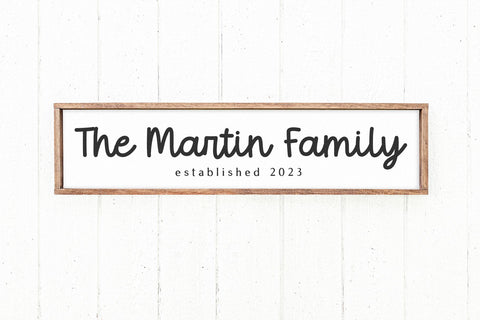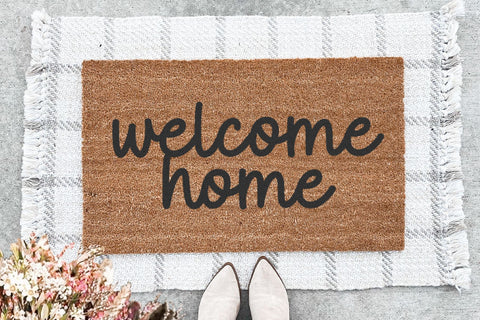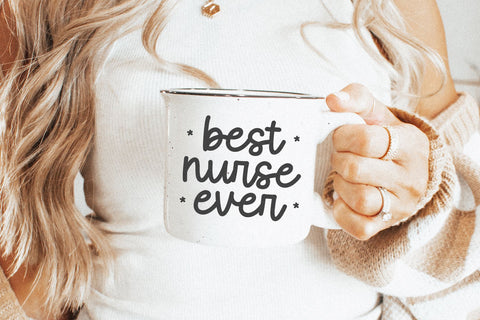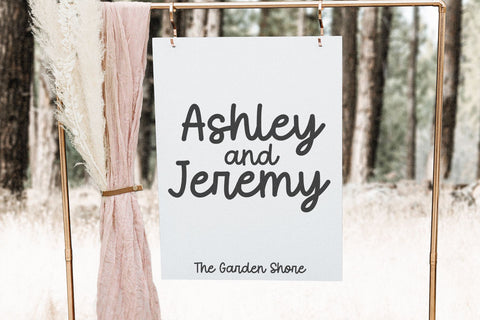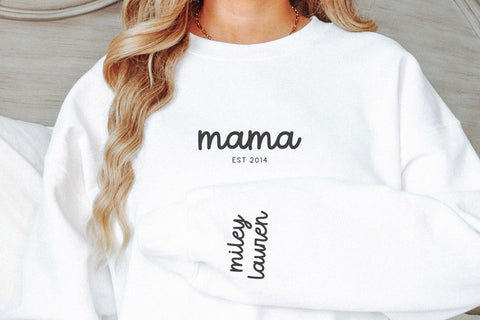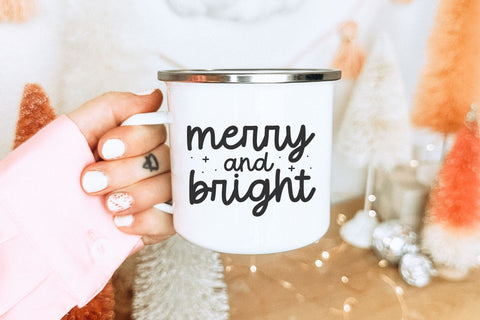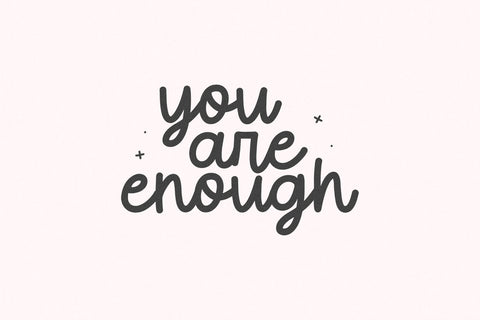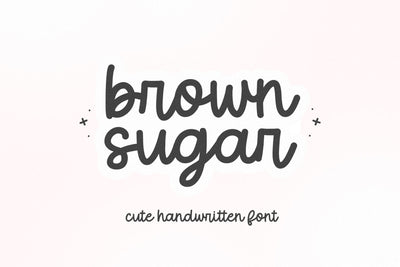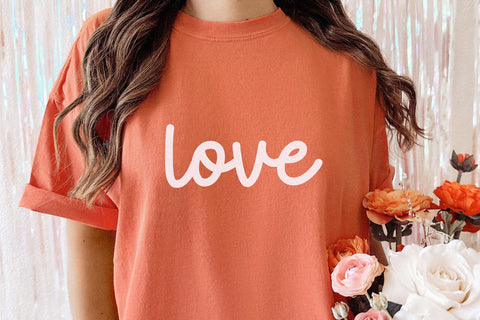
Brown Sugar - Cute Handwritten Font
Brown Sugar is a handwritten script font.
This font is perfect for logos, branding, wedding decor, farmhouse designs, cricut projects, svg files, stickers, mugs and more!